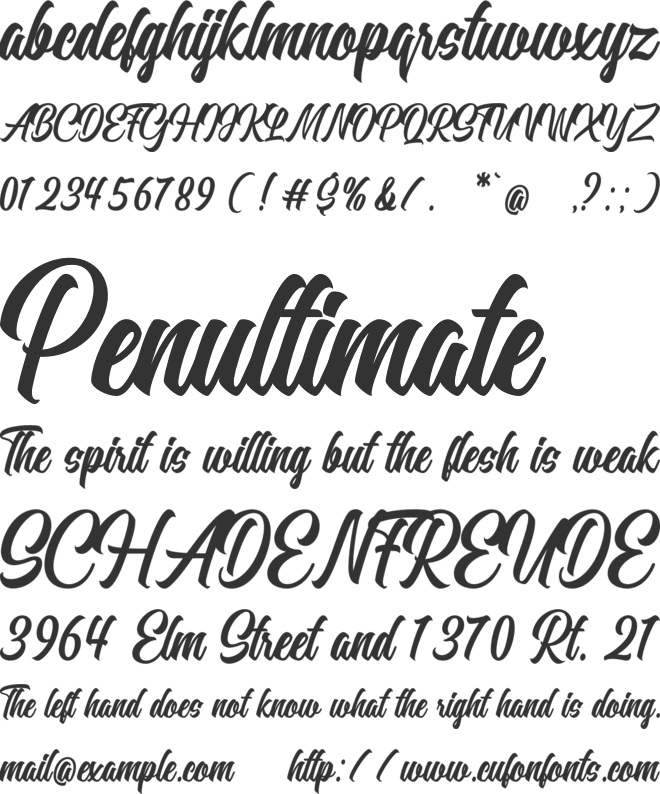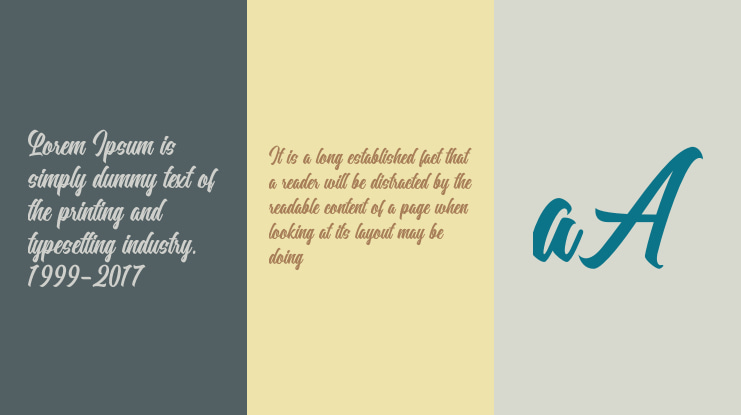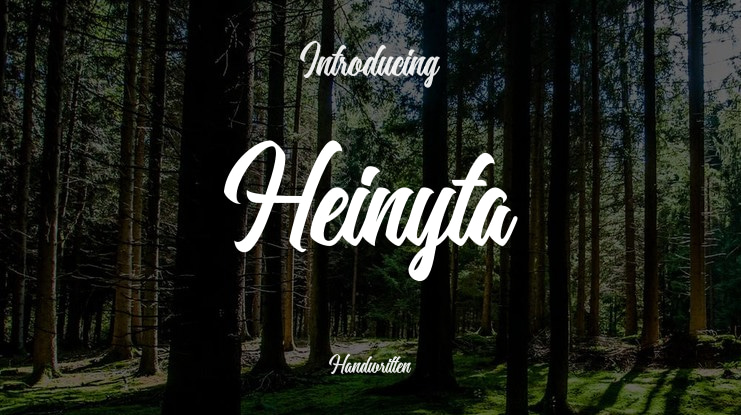
Heinyta Font
Proudly Present a new font called Heinyta inspired by urban script fonts with sharp and beautiful letters that create fonts that are modern, trendy and elegantThis demo font is for PERSONAL USE ONLY! But any donation are very appreciated.Paypal account for donation :https://PayPal.Me/payrgbstudioLink to purchase full version and commercial license : https://crmrkt.com/JPwdQQFor Extended License or Corporate License Please Reach Us on email :  you need something! Happy Designing! Thank you.Regards,RGB Studio